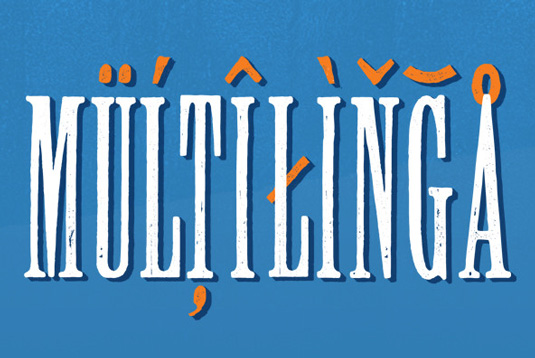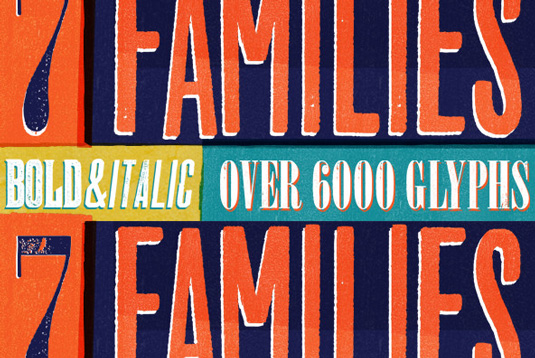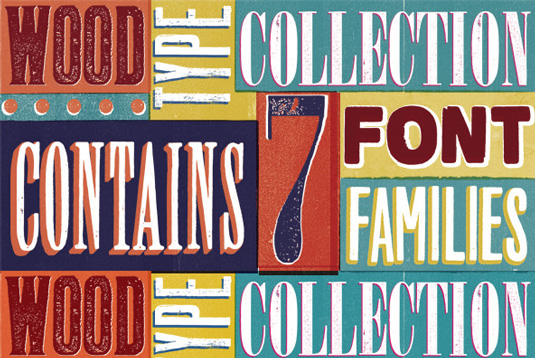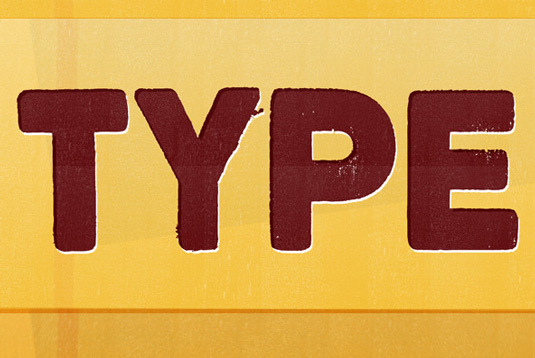
Font of the day: Wood Type
Every day we showcase the best fonts on the web. Today it's Wood Type by Mateusz Machalski.
Wood Type by Mateusz Machalski
This warm, weathered, handmade font family Wood Type was designed by Mateusz Machalski. Inspired by wooden letter blocks and other old technologies used for printing, the family supports 40 different languages, contains over 6000 glyphs and consists of 7 typefaces in 14 different styles.